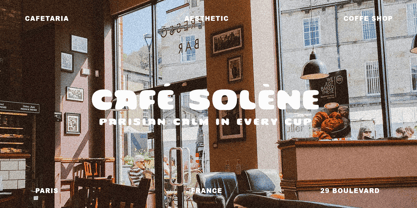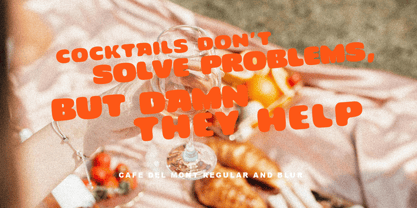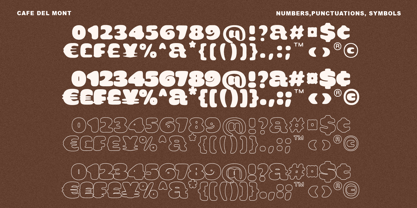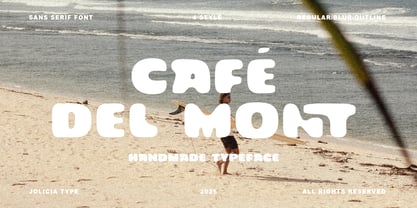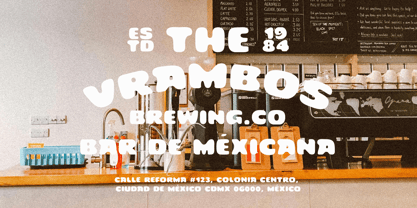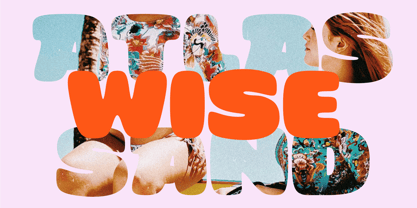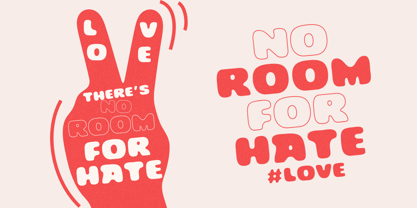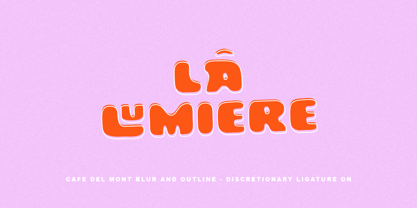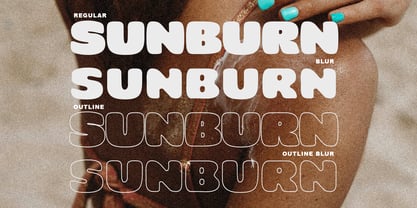
Cafe Del Mont
Die Schriftfamilie Cafe Del Mont wurde von Laire Banyu, Dyaharum Pungki Revitasari entworfen und von Jolicia Type veröffentlicht. Cafe Del Mont enthält 4 Stile und Familienpaketoptionen.
Cafe Del Mont is a bold handwritten sans-serif font infused with a warm organic vintage vibe. Crafted to look naturally handwritten with confident strokes, it delivers a friendly yet strong character—perfect for designs that seek an authentic and approachable feel.
This font comes in 4 versatile styles:
• Regular
• Blur
• Outline
• Outline Blur
Each version offers unique personality—from clean boldness to soft, retro blur effects. The outline styles add an extra layer of charm, making this typeface ideal for café branding, organic product packaging, nostalgic signage, or lifestyle posters with a handmade touch.
Cafe Del Mont is the perfect blend of vintage flair and modern usability, giving your typography a voice that feels real and heartfelt.